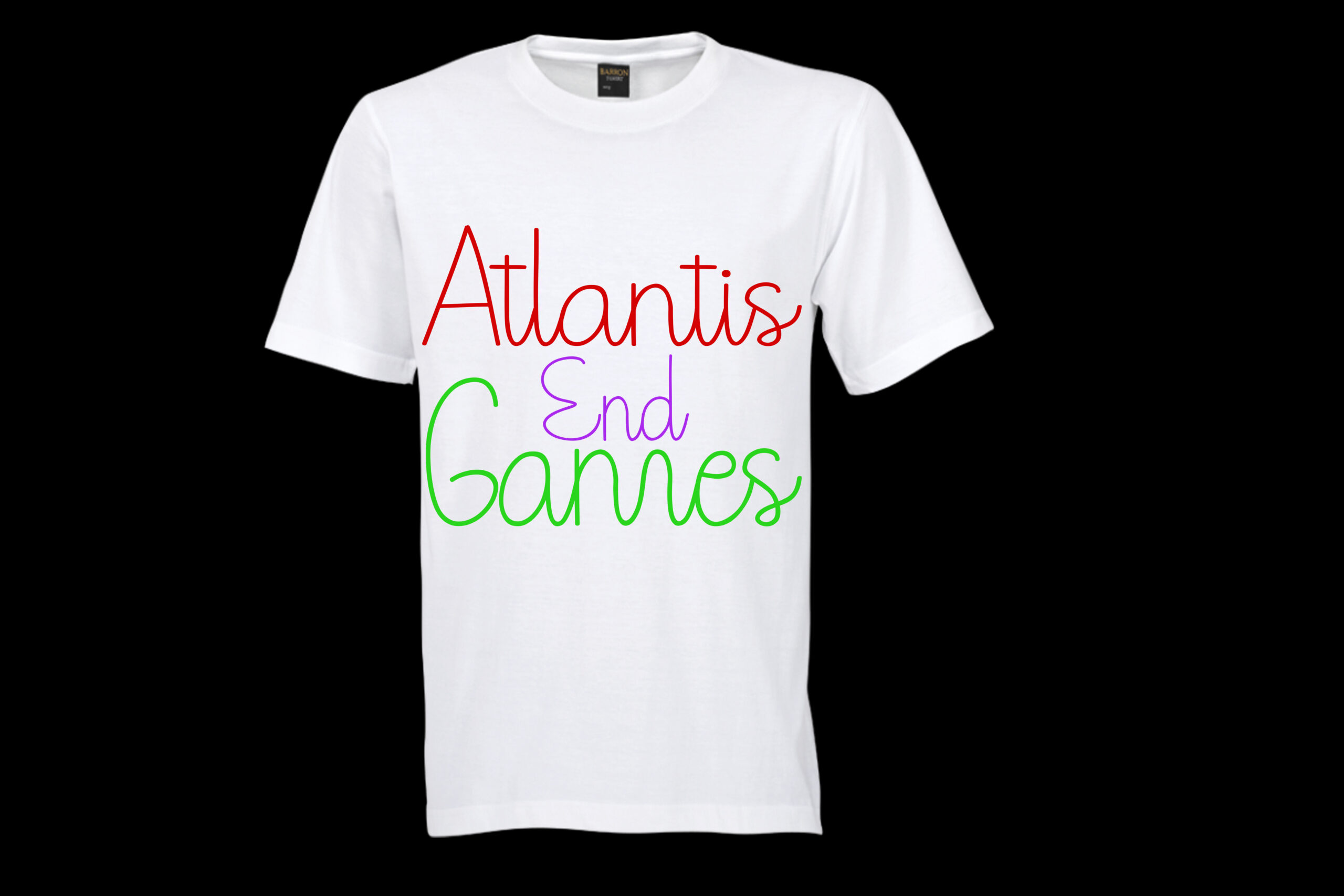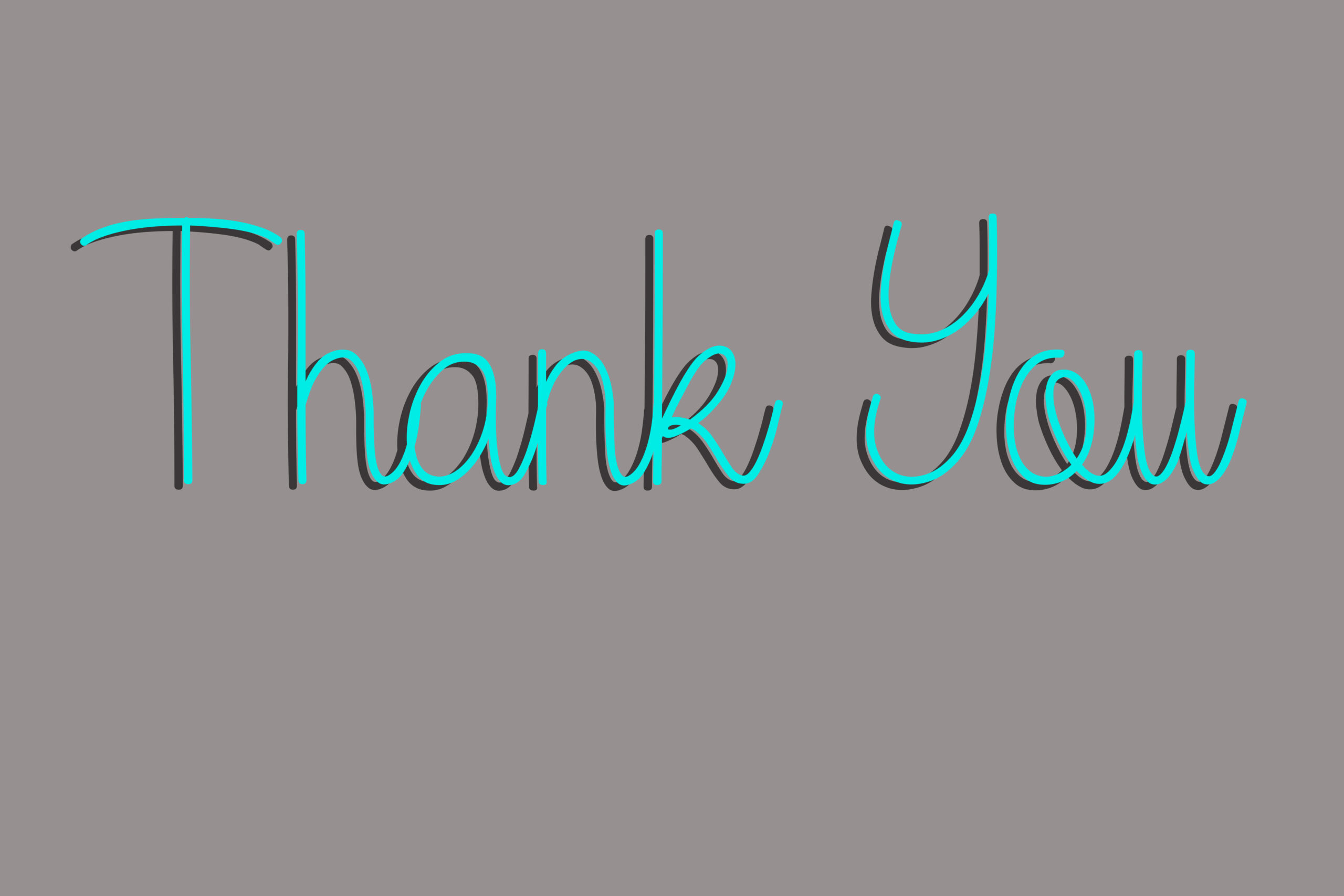
Peterpan Font
About Peterpan Font
Peterpan is a fun and jovial handwritten font, a perfect addition to designs that require an eccentric and free charm. Use in a large number of ways and styles.